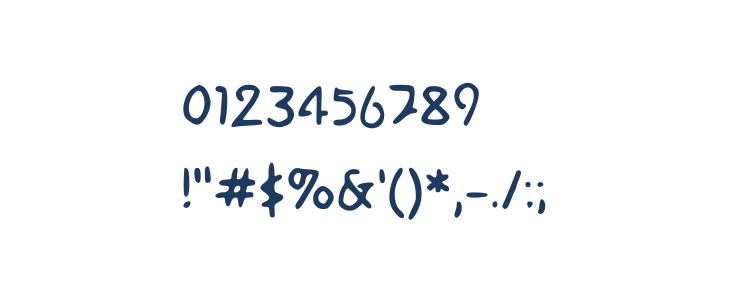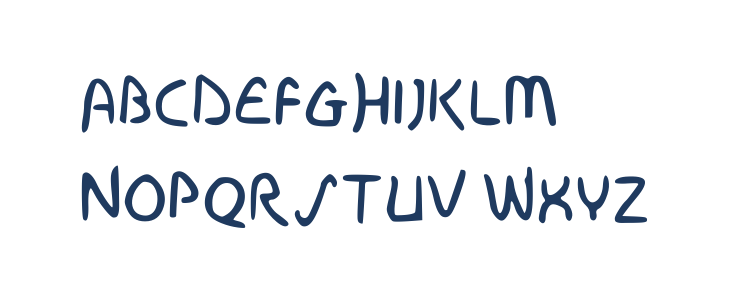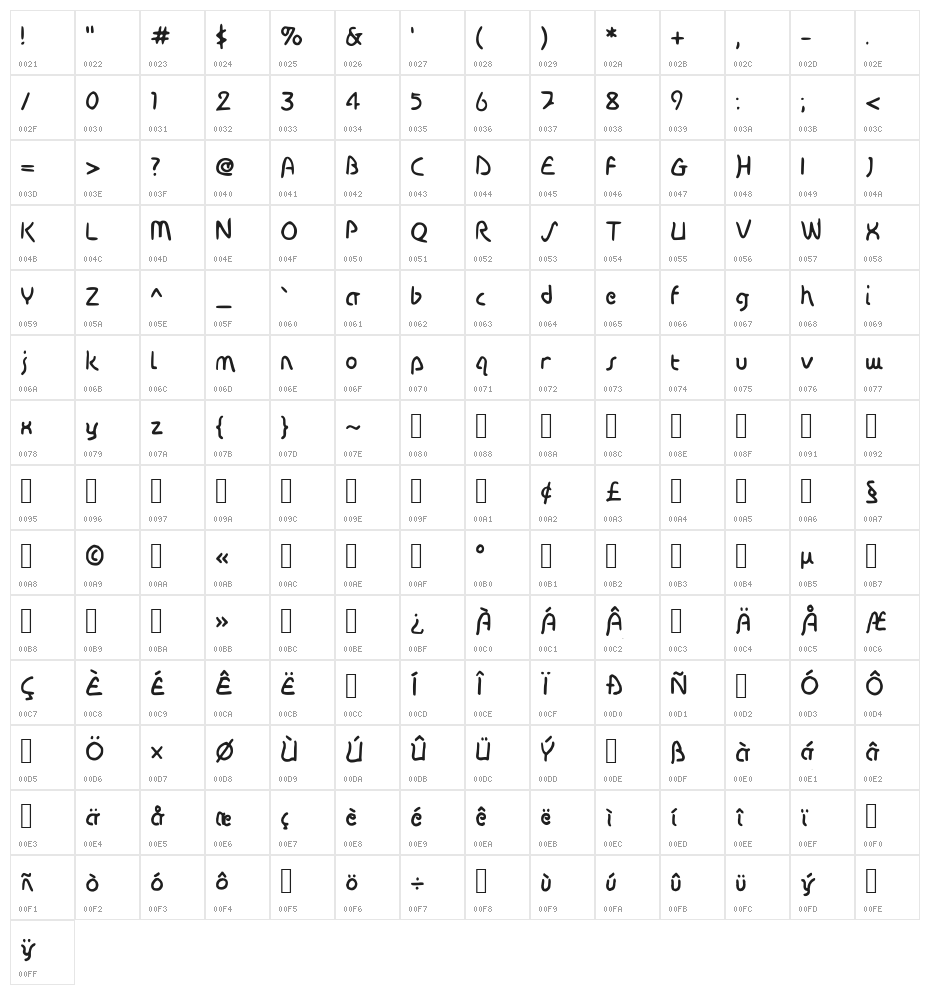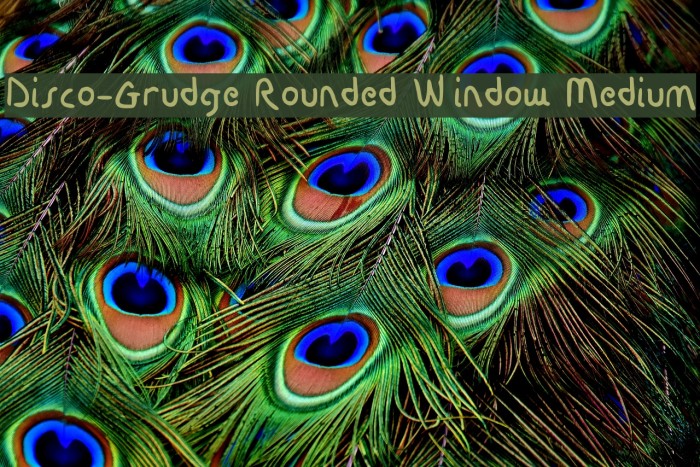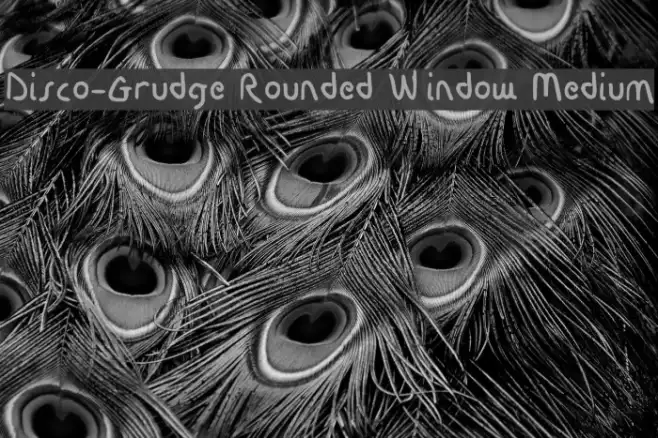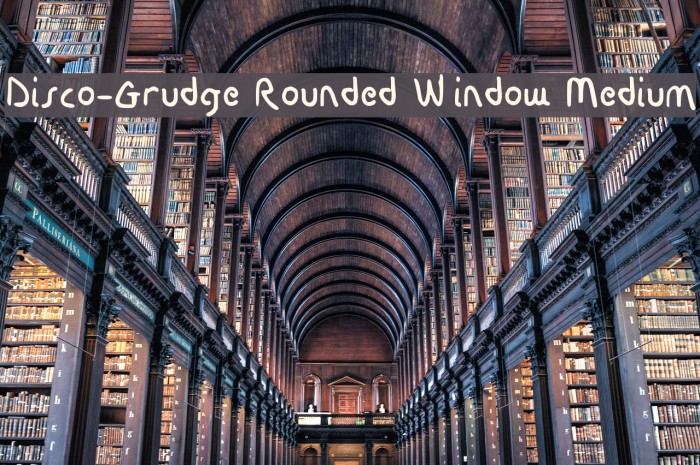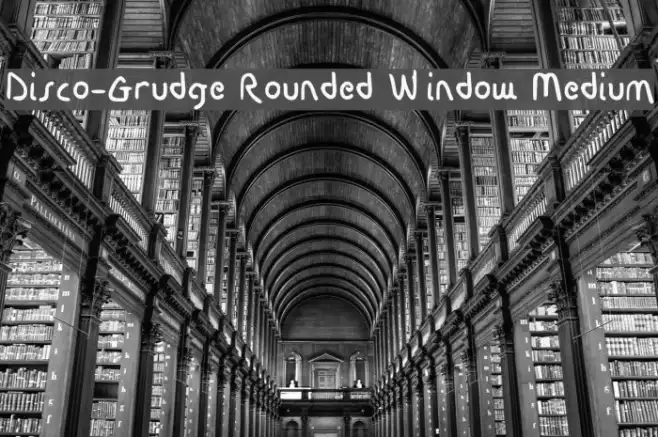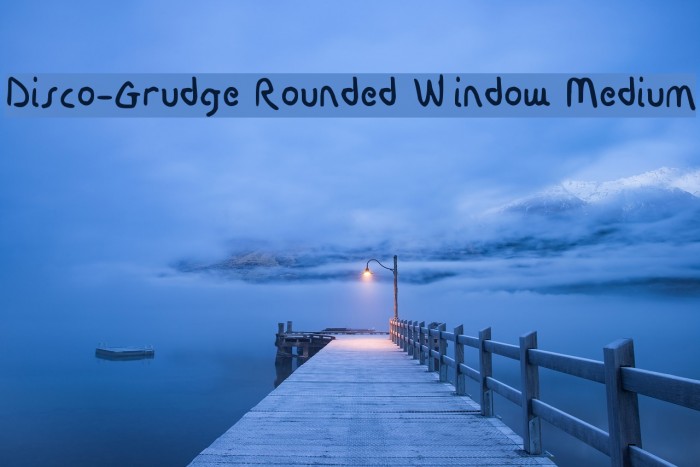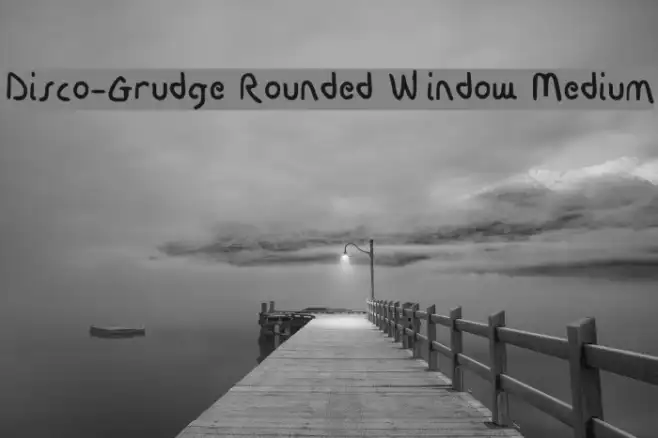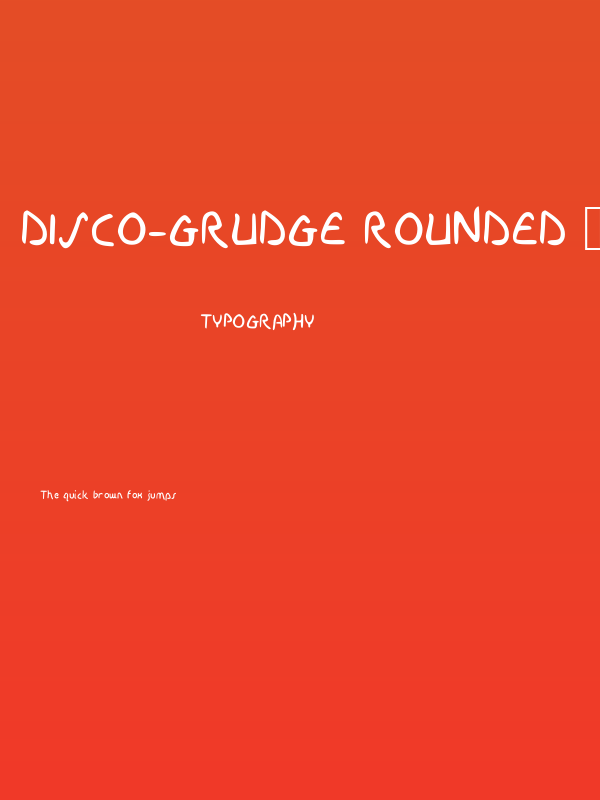
Disco-Grudge Rounded [Window] Medium Font
Disco-Grudge Rounded [Window] Medium Description
This font features a playful and rounded style, characterized by its smooth curves and slightly irregular shapes. The letters have a hand-drawn appearance, giving them a casual and approachable feel. The uppercase and lowercase letters maintain a consistent style, with rounded edges and a moderate weight that ensures readability. The numbers and special characters follow the same design principles, making the font versatile for various uses. Its unique style is reminiscent of retro and grunge aesthetics, yet it maintains a modern touch with its clean lines and balanced proportions.
| Overall Style | Modern, Retro |
| Proposed Projects | Ideal for creative projects such as posters, album covers, children's books, and branding that requires a fun and approachable look. |